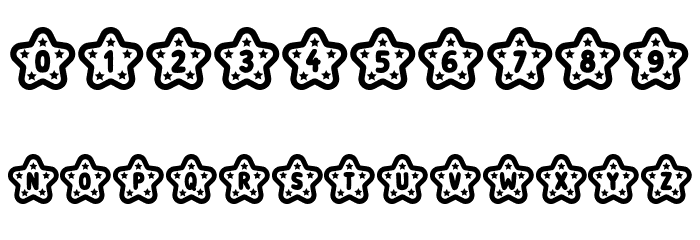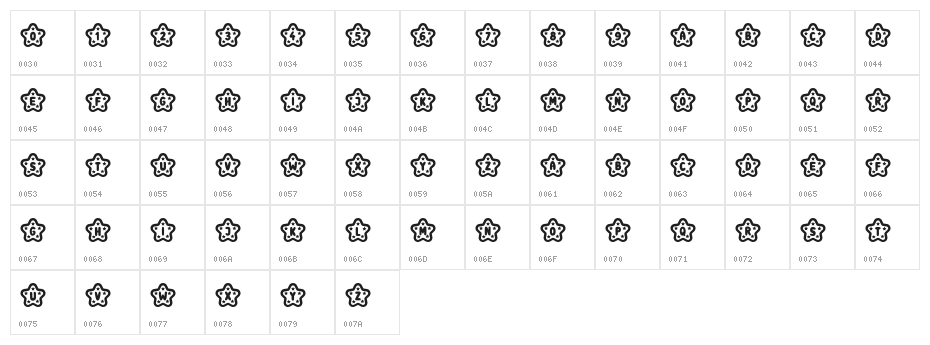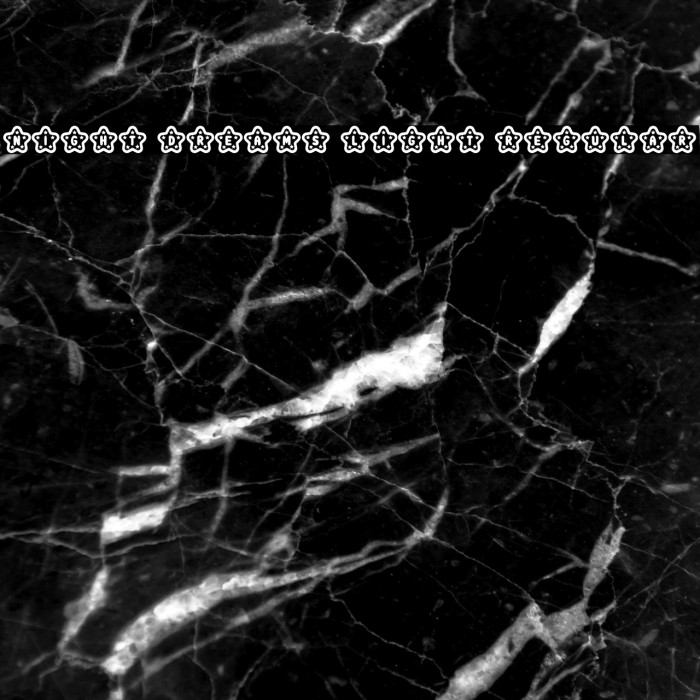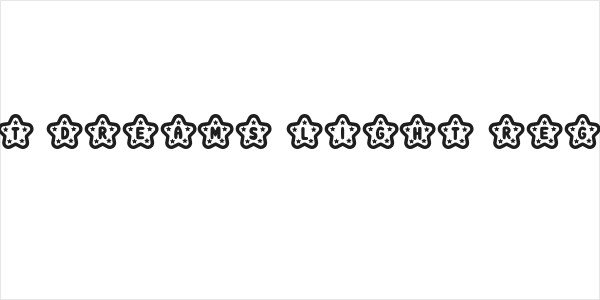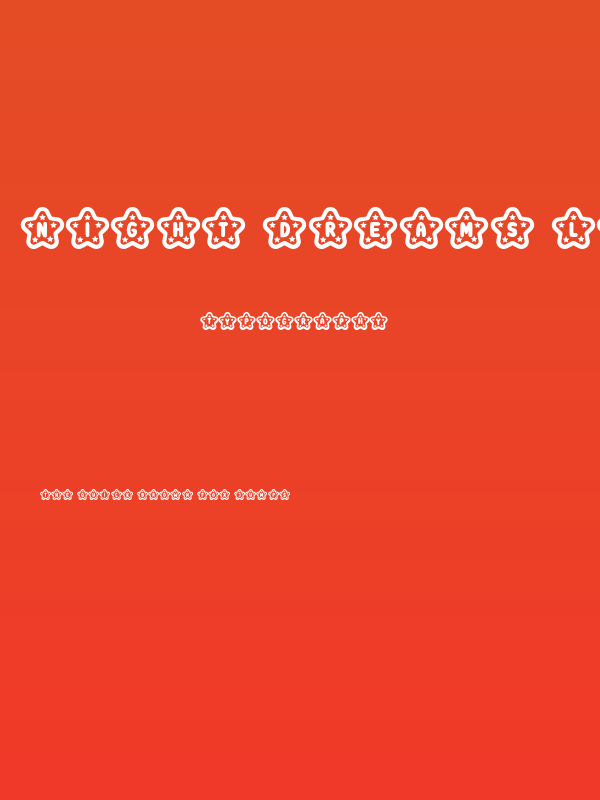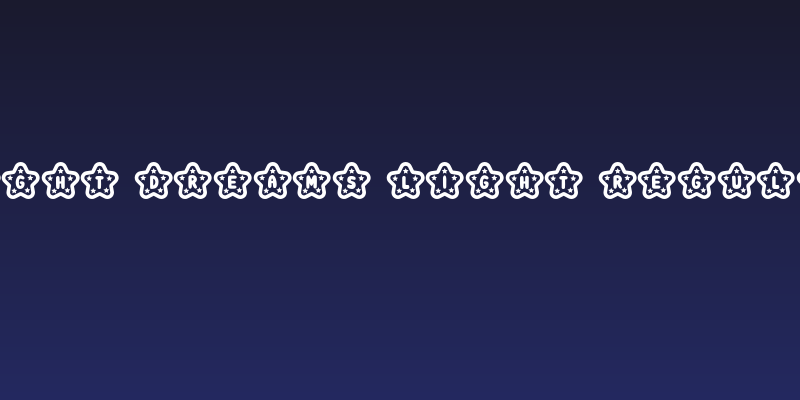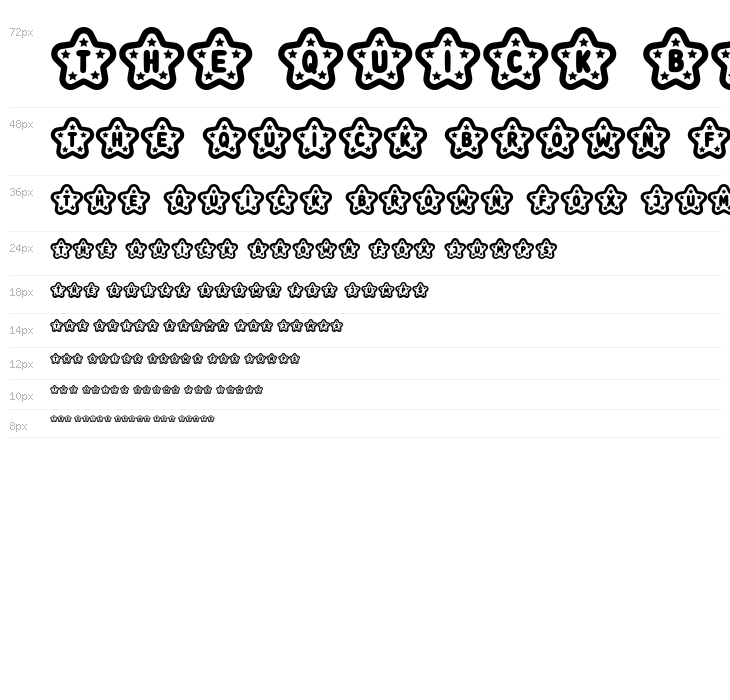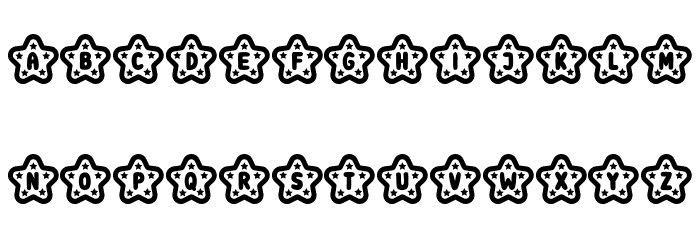
Night Dreams Light Regular Font
Night Dreams Light Regular Description
This playful and whimsical font features characters enclosed within star-shaped outlines, giving it a unique and decorative appearance. The letters and numbers are bold and clear, making them easily readable despite the intricate design. Each character is centered within its star, creating a consistent and balanced look. The font's style is reminiscent of a child's dream or a magical theme, making it ideal for projects that require a touch of fantasy or fun. The consistent use of star shapes around each character adds a decorative element that is both charming and eye-catching.
| Proposed Projects | Ideal for children's book covers, party invitations, fantasy-themed posters, and playful branding. |